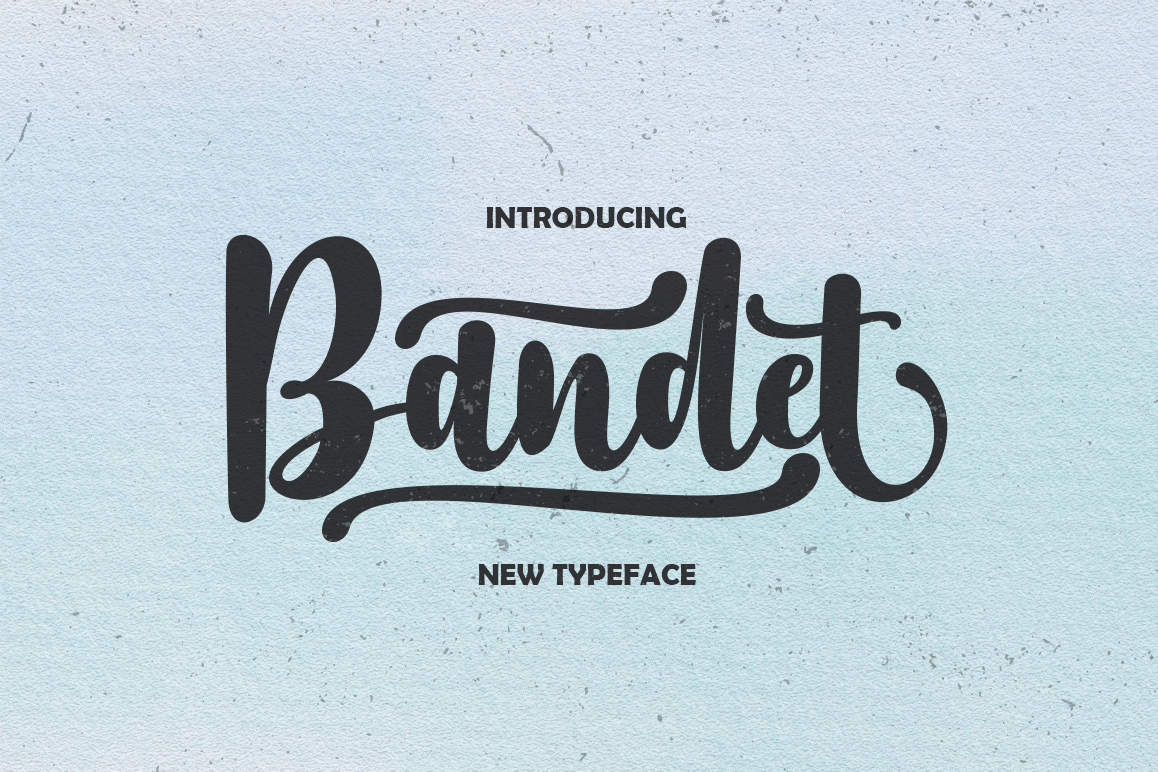
Bandet FontDuo
Bande
Bandet dsply
Bandet is a font bold, so, brush script that is beautiful and unique, it is a model of modern calligraphy typefaces, in combination with a calligraphy writing style.The Features of this fonts is;Contextual Alternates
• Standart ligatures
• Stylistic sets
Languages supported: Breton, Catalan, Czech, Danish, Estonian,French, German, Hungarian, Icelandic, Italian, Romanian, Scottish Gaelic, Slovak, Latvian, Lithuanian, Norwegian, English, Finnish, Polish, Portuguese, Slovenian, Spanish, Swedish, Turkish, Welsh. Basically, all european languages that are based on latin alphabetCan be used for various purposes.such as headings, logos, wedding invitation, t-shirt, letterhead, lable, news, posters, badges etc. To enable the OpenType Stylistic alternates, you need a program that supports OpenType features such as Adobe Illustrator CS, Adobe Indesign & CorelDraw X6-X7.